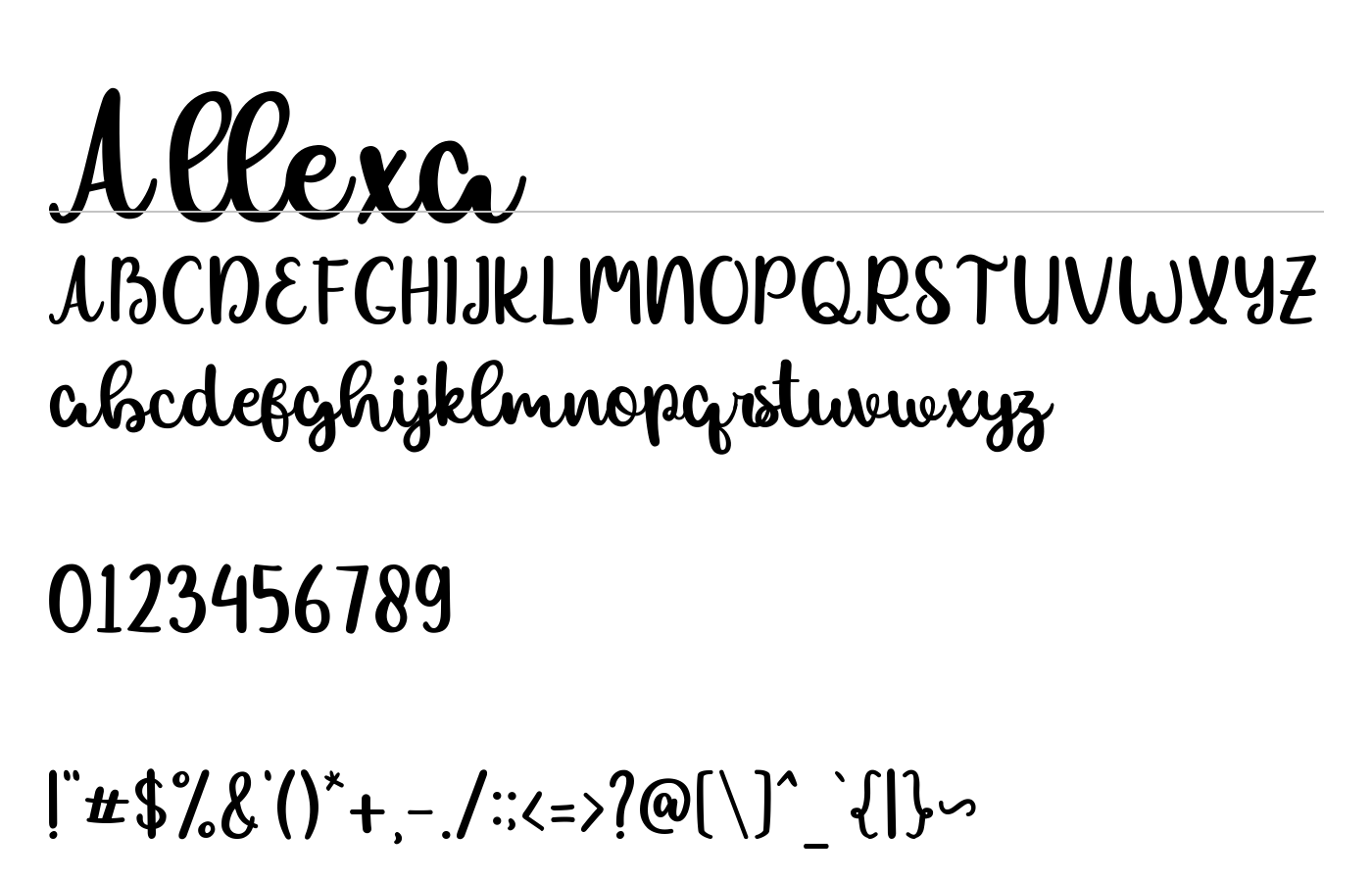
Allexa is a playful and lively script font featuring smooth, rounded strokes and a casual, handwritten feel. It combines both uppercase and lowercase letters with a friendly, approachable style that works well for creative designs, invitations, and branding with a personal touch. Its legible yet charming character makes it ideal for projects seeking warmth and a fun yet polished appearance.
Allexa Font
About Allexa Font